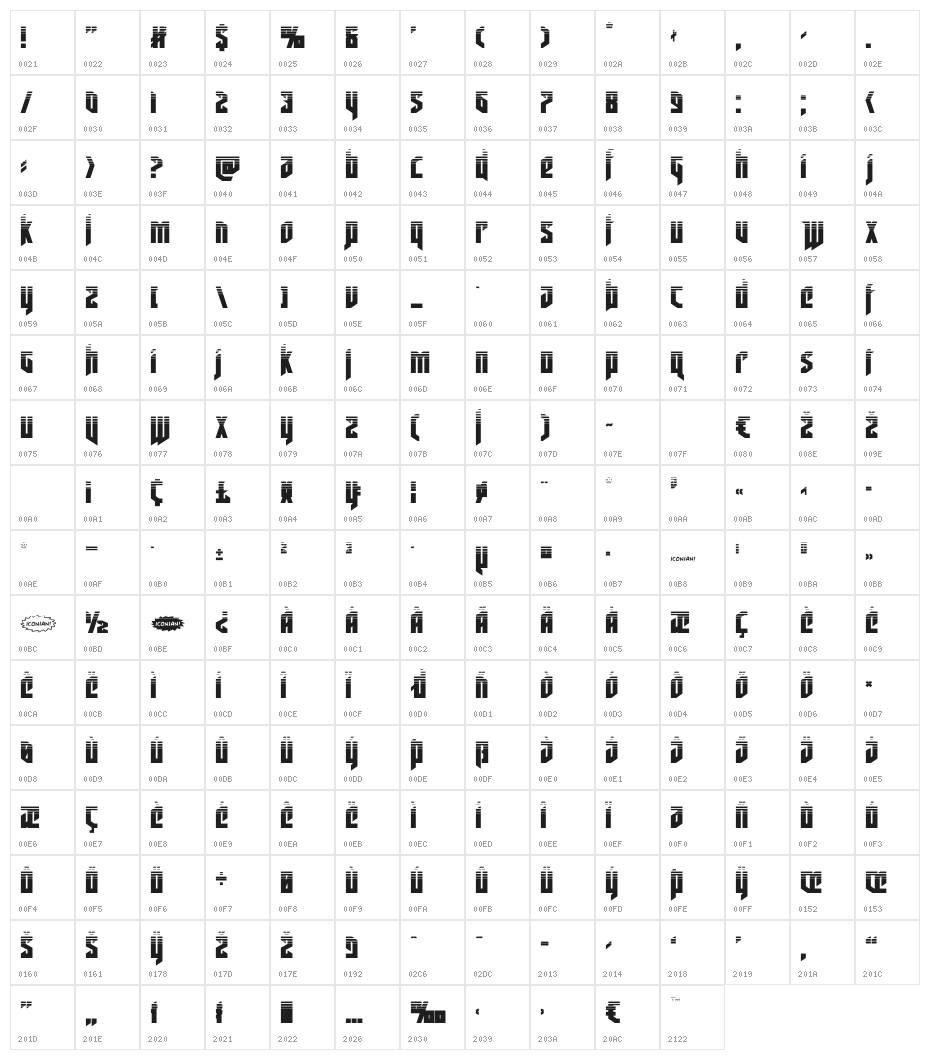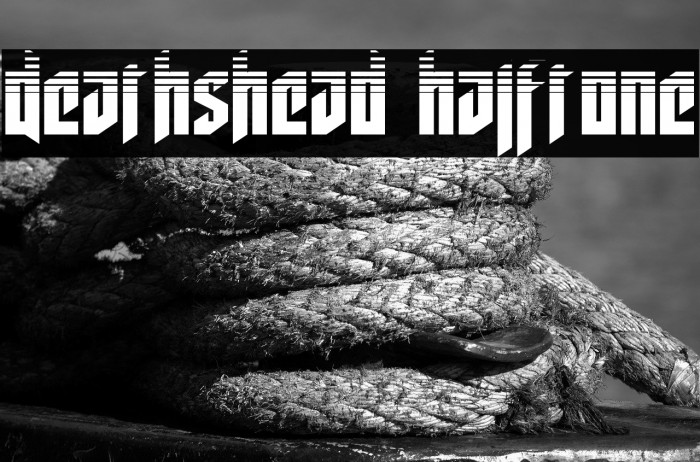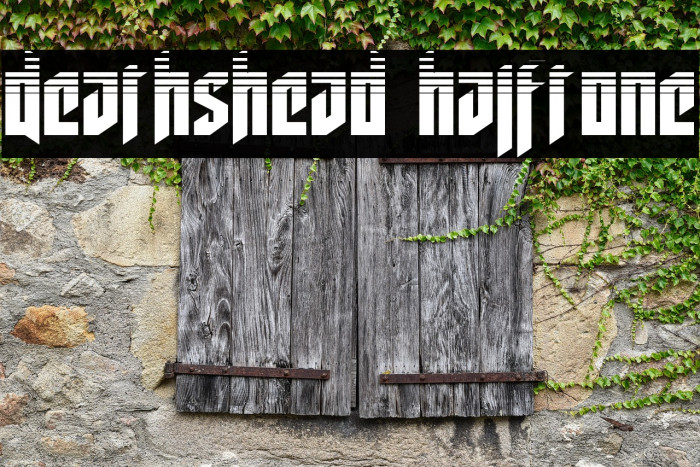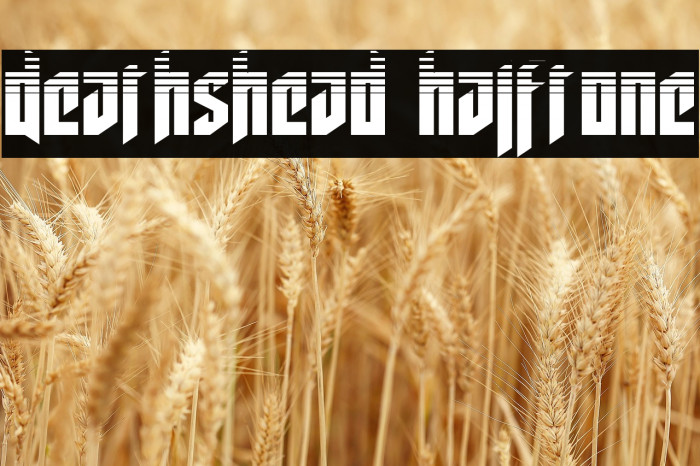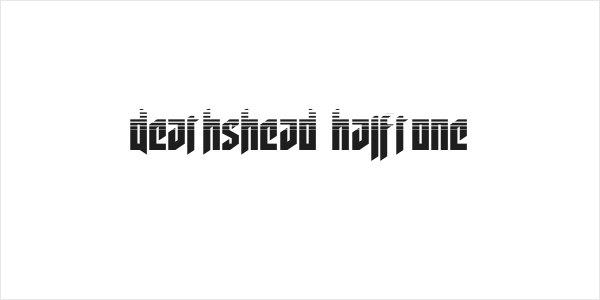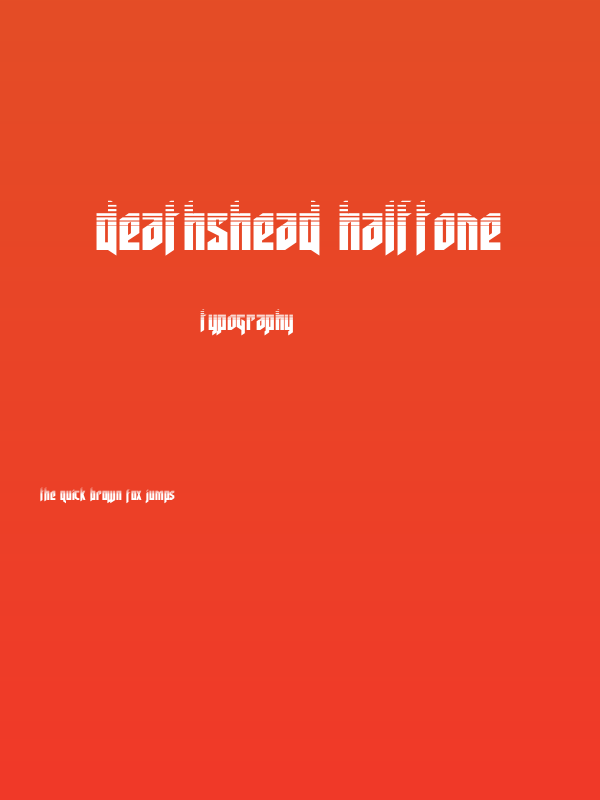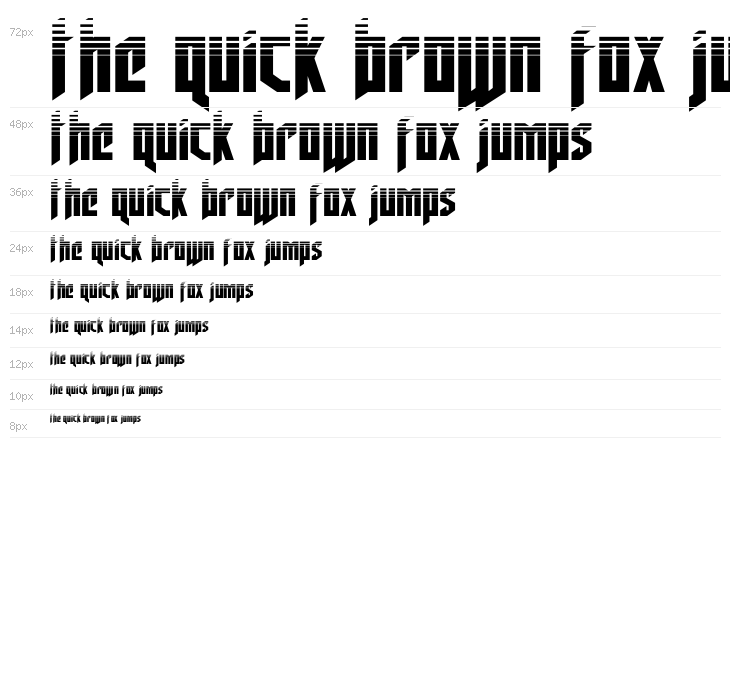
Deathshead Halftone Font
Deathshead Halftone Description
This font features a bold, geometric design with a distinct halftone effect, giving it a modern and edgy appearance. The characters are constructed with sharp angles and straight lines, creating a futuristic and industrial feel. The uppercase and lowercase letters maintain a consistent style, with the uppercase being slightly taller and more pronounced. The numbers and special characters follow the same design principles, ensuring uniformity across all glyphs. The halftone effect adds a unique texture, making the font stand out in digital and print media. This font is ideal for projects that require a strong visual impact and a contemporary aesthetic.
| Proposed Projects | Ideal for branding, posters, album covers, and digital media that require a strong visual impact. |